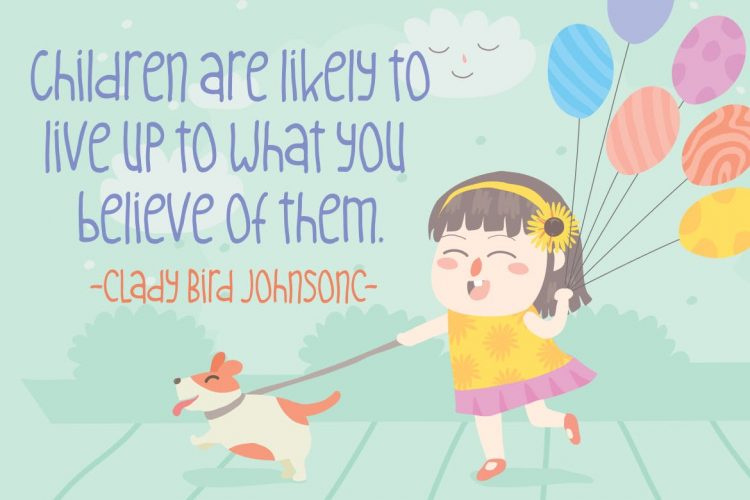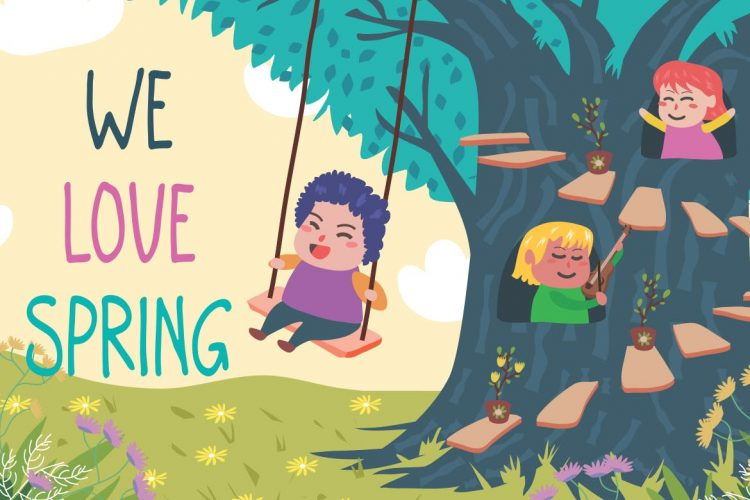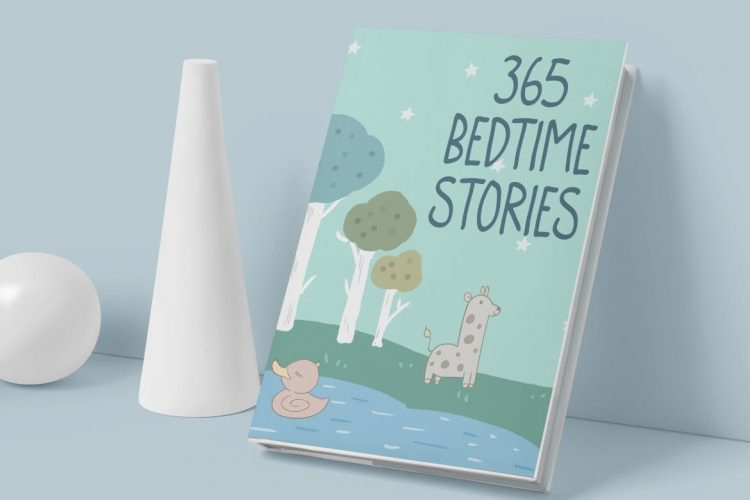
Kinderplay – Kids font
Light and cute, it speaks like children in our eyes.
Suit perfectly for kids market, online games, stationary, t-shirt and school supplies font, poster, movie title, youtube covers, youtube thumbnails, social media page covers and so on…